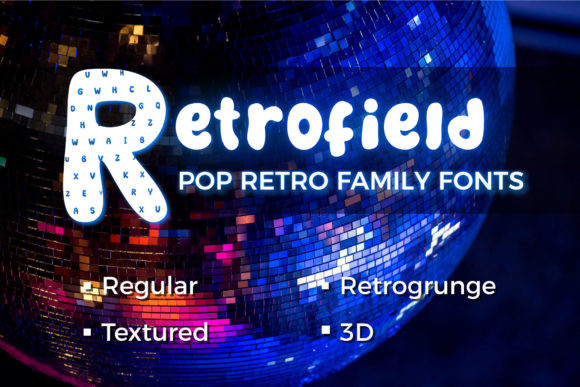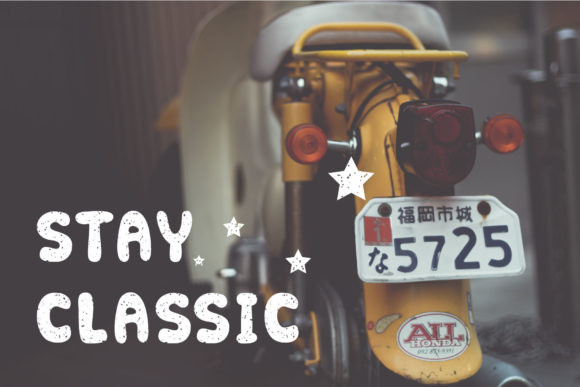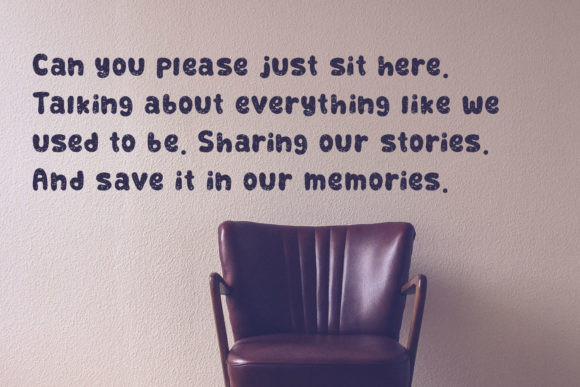
Retrofield Font
Retrofield is a friendly display font. It comes in four unique styles. Use it to create logos, social media posts, cute posters and much more.